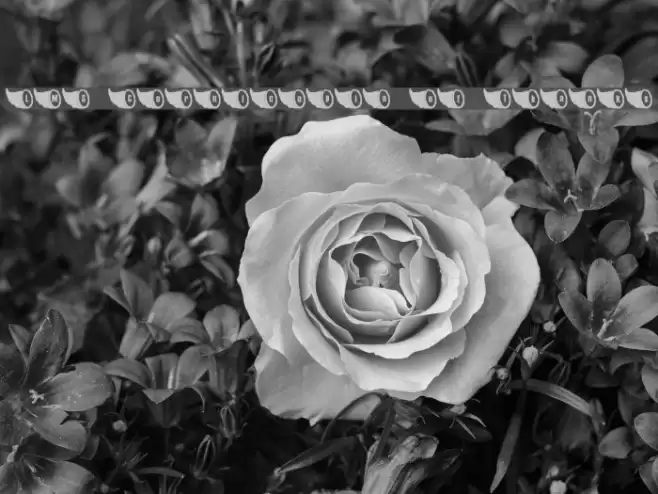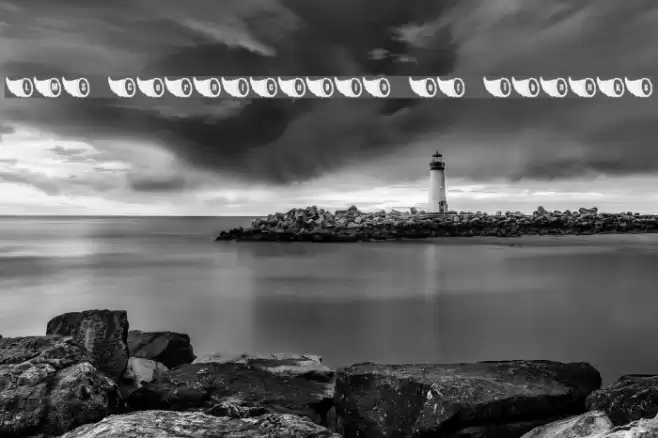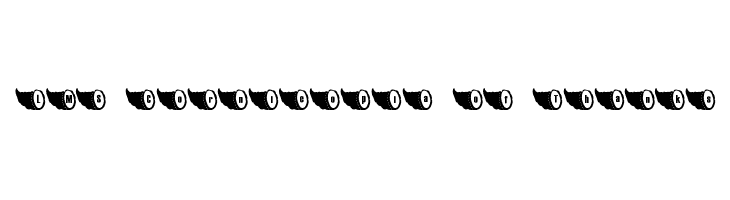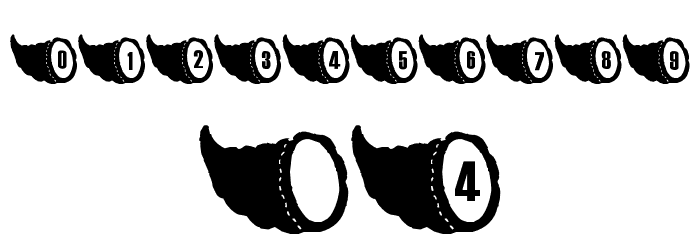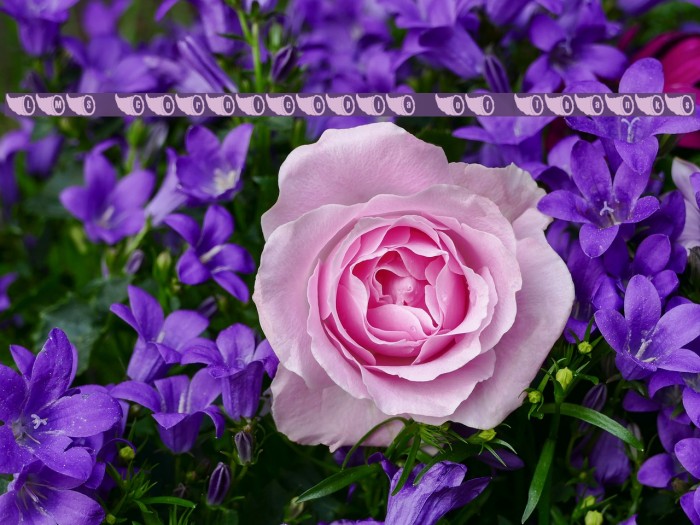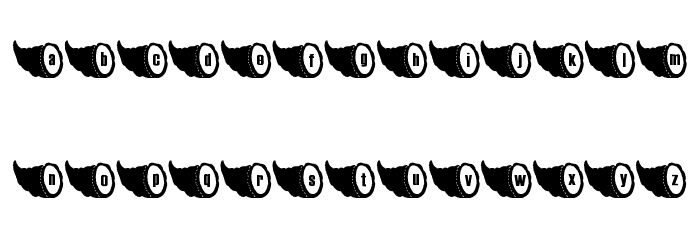
LMS Cornicopia of Thanks Font
LMS Cornicopia of Thanks Description
This decorative font features characters enclosed within a cornucopia shape, giving it a unique and festive appearance. Each letter and number is centered within the horn-like design, creating a playful and thematic look. The style is bold and eye-catching, making it ideal for projects that require a touch of whimsy or a holiday theme. The characters are evenly spaced within their individual cornucopias, ensuring readability while maintaining the decorative aspect. The font is particularly suited for creative projects that celebrate abundance or Thanksgiving themes.
A decorative font with characters inside cornucopia shapes, perfect for festive themes from Uncategorized fonts.
- Font: LMS Cornicopia of Thanks
- Proposed Projects: Ideal for holiday cards, festive banners, Thanksgiving invitations, and themed posters.
- Use Case: Headlines, Logos, Themed Invitations